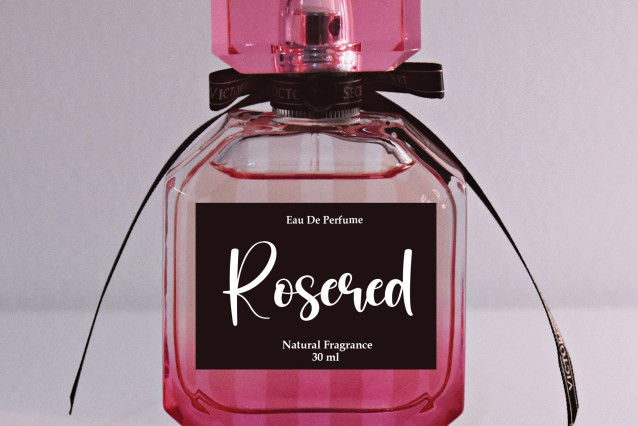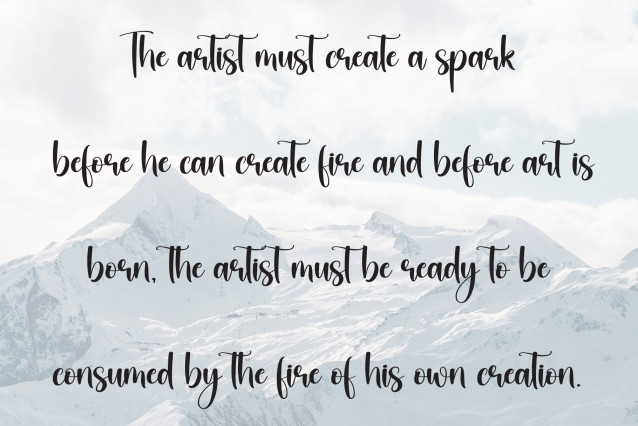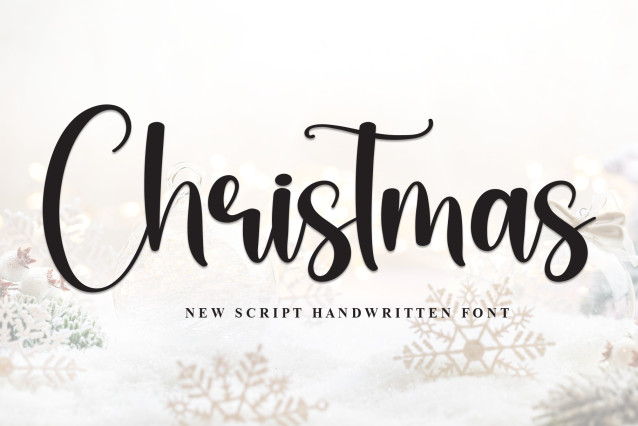
Christmas Script Type looks handwritten, giving it a warm and cozy feel. The letters are playful and cozy, perfect for greeting cards, decorations or anything with a festive feel. The swirls and curves create a playful and inviting look, bringing the Christmas spirit into your projects.